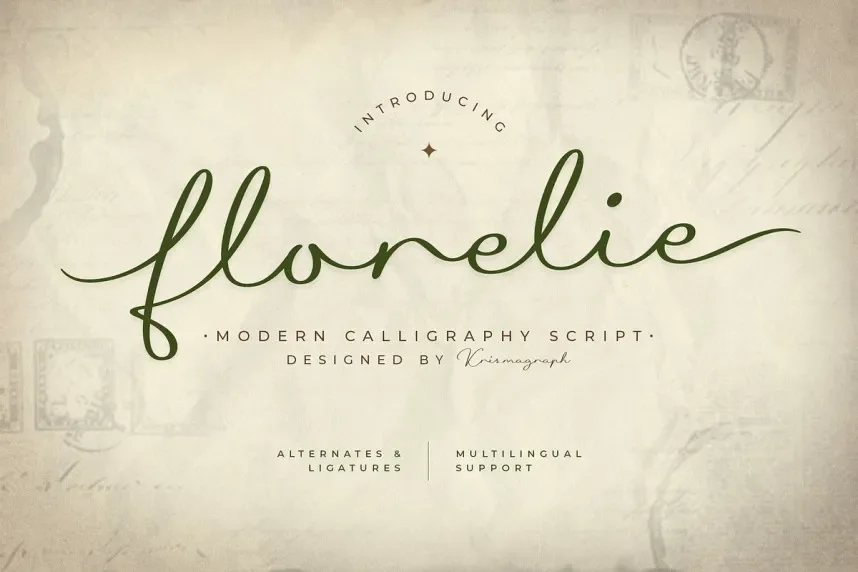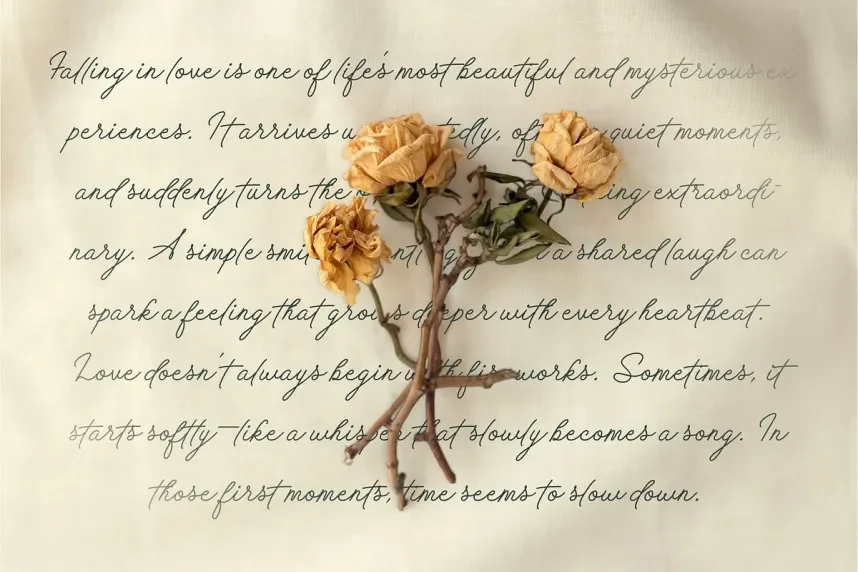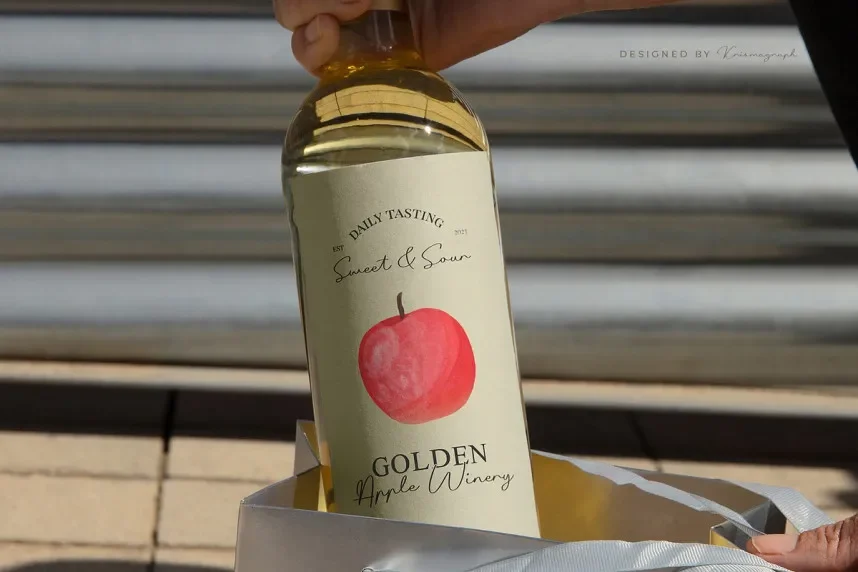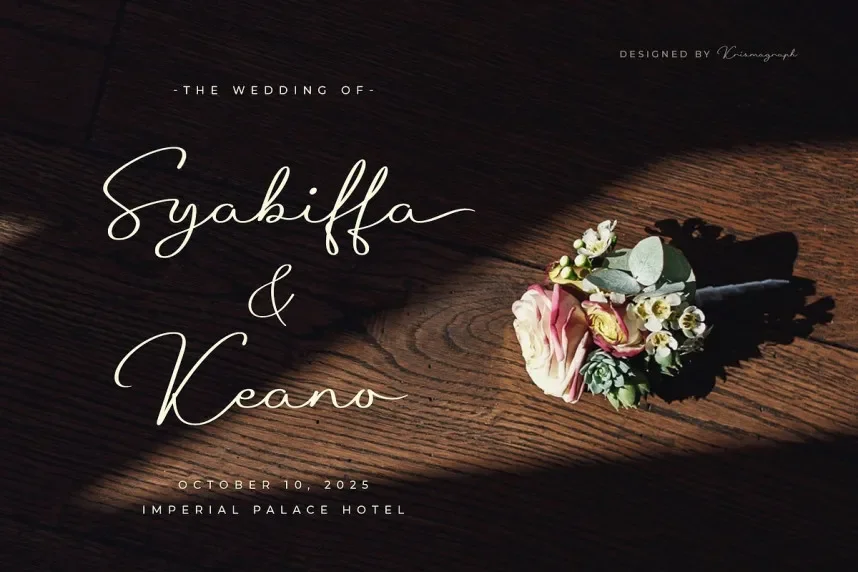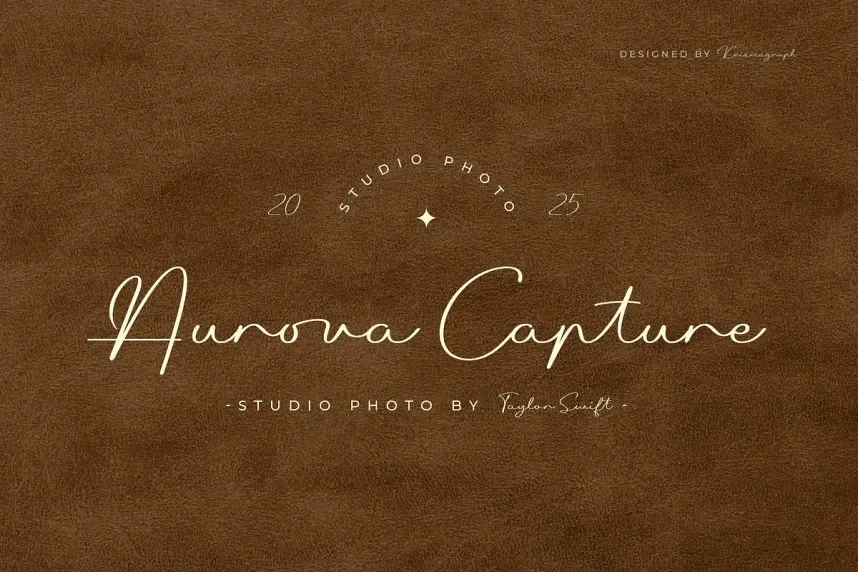
Florelie Font is a delicate calligraphy script typeface with graceful curves and unique ligatures. Its flowing, handwritten design makes it ideal for invitations, branding, and projects that require a refined, personal touch.